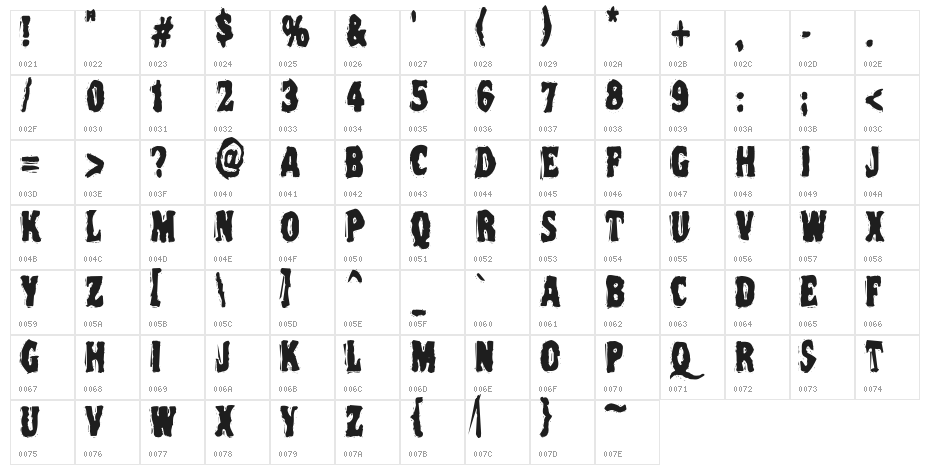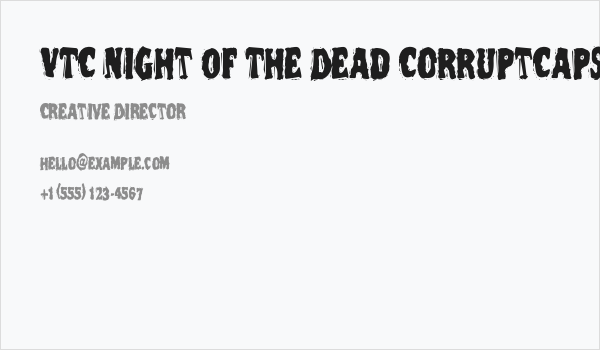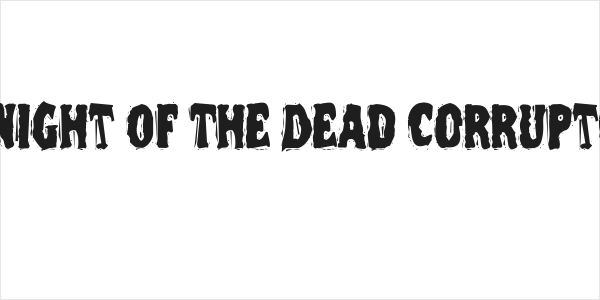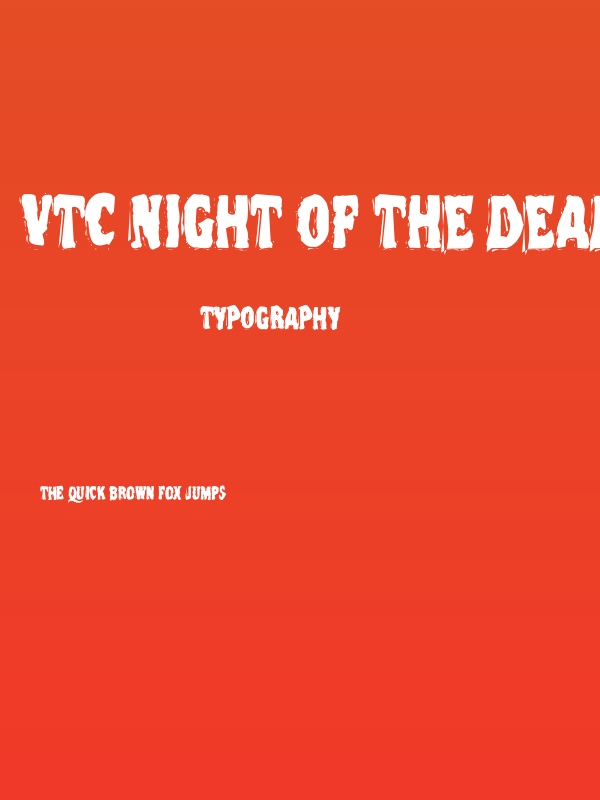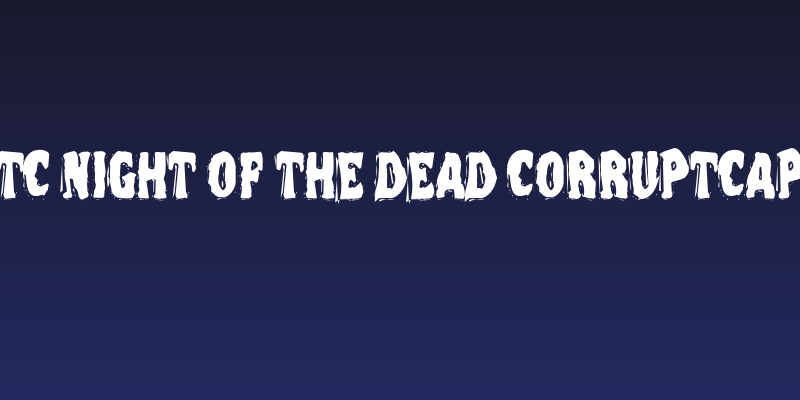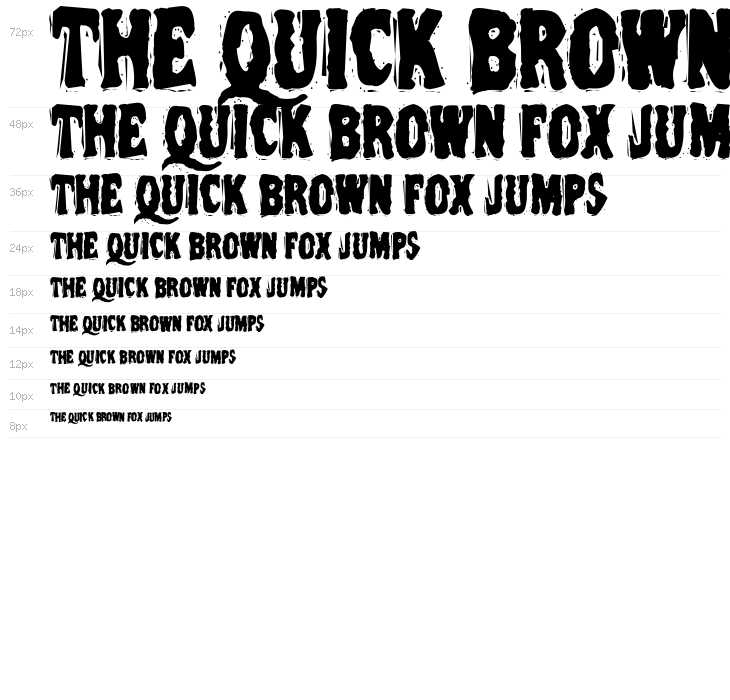
VTC Night Of The Dead CorruptCaps Font
VTC Night Of The Dead CorruptCaps Description
This font features a bold and distressed style, with each character appearing as if it has been roughly carved or eroded. The edges are irregular and jagged, giving it a raw and gritty appearance. The uppercase and lowercase letters maintain a consistent height, contributing to a uniform yet chaotic look. Numbers and special characters follow the same rugged design, enhancing the overall theme. This font is perfect for projects that require a dramatic and intense visual impact, such as horror-themed designs or edgy branding.
Proposed ProjectsIdeal for horror-themed posters, edgy branding, Halloween invitations, and video game graphics.